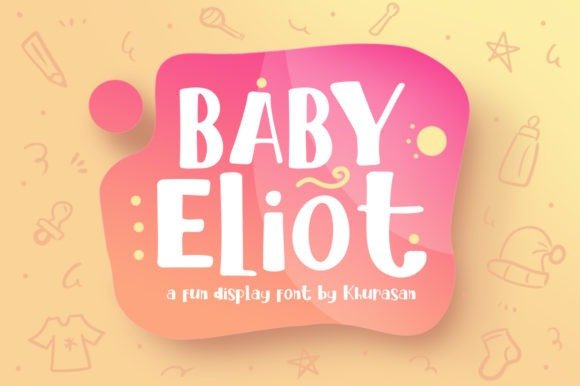
Baby Eliot Display Font
Baby Eliot Font is a layered font inspired by the joyful world of colorful children.
Collaborating with this font with children’s clothing designs will create extraordinary designs.
This font can also be used for branding, products, books, and other designs.